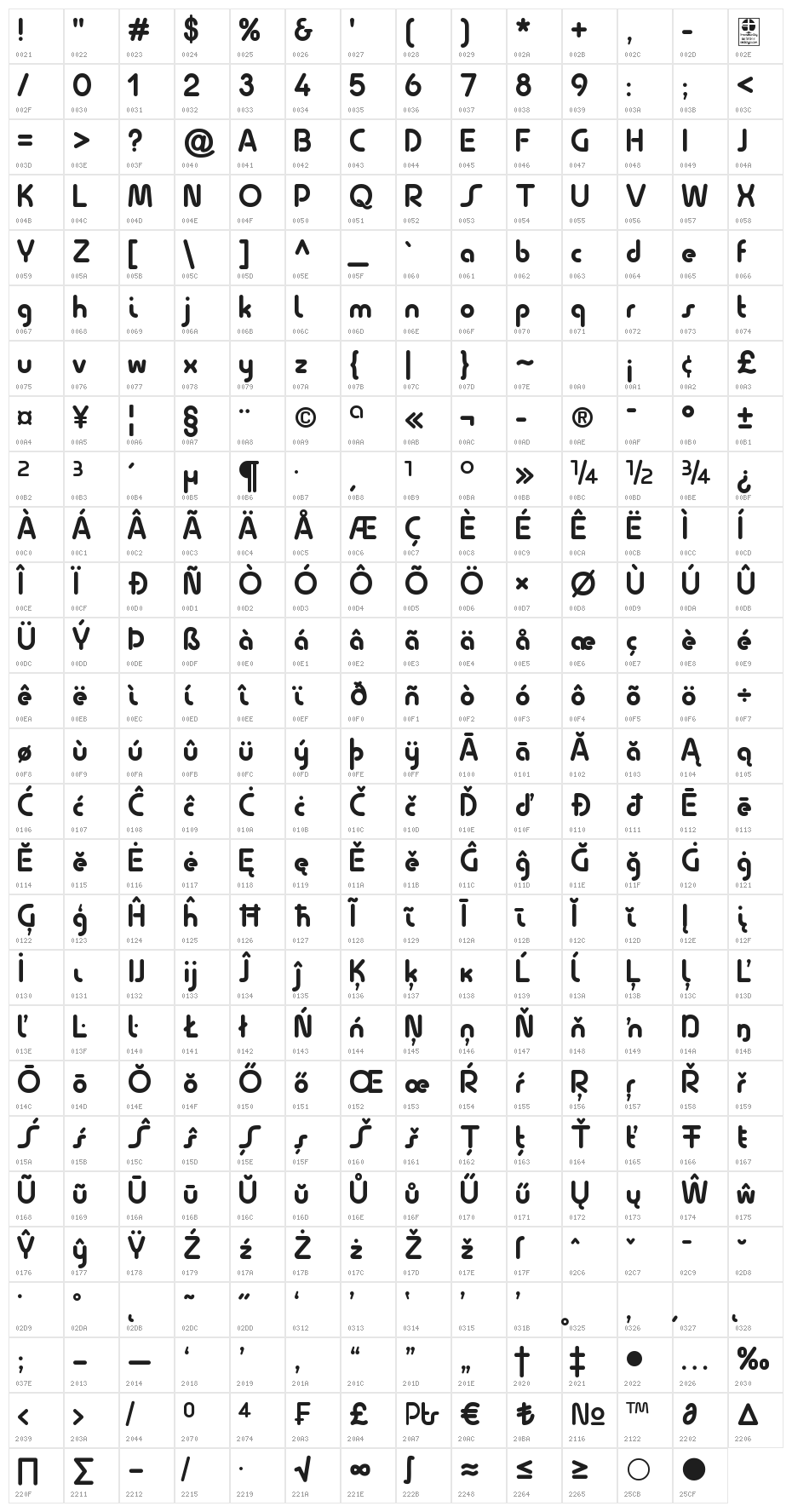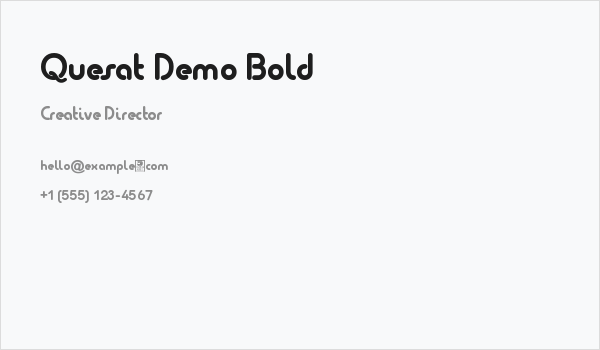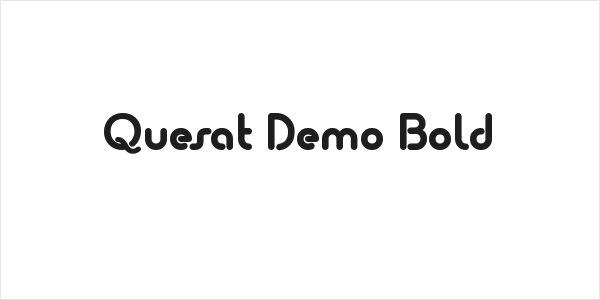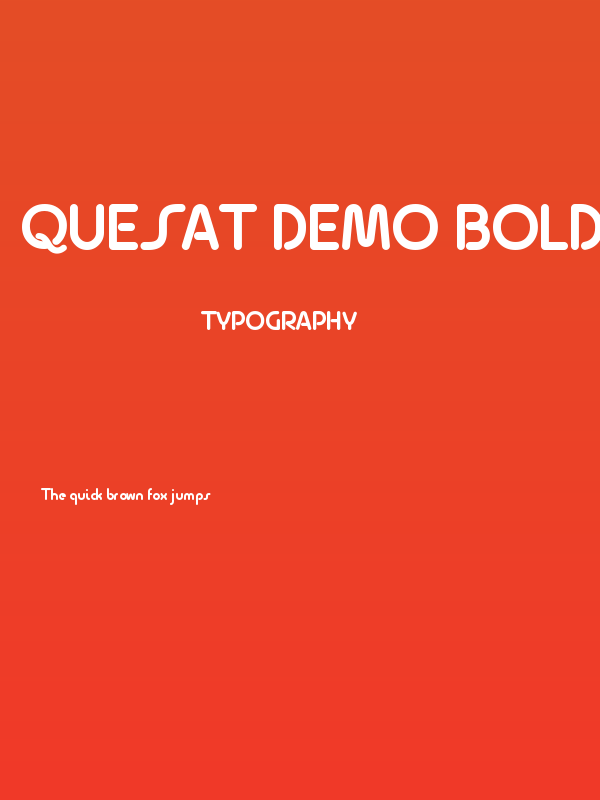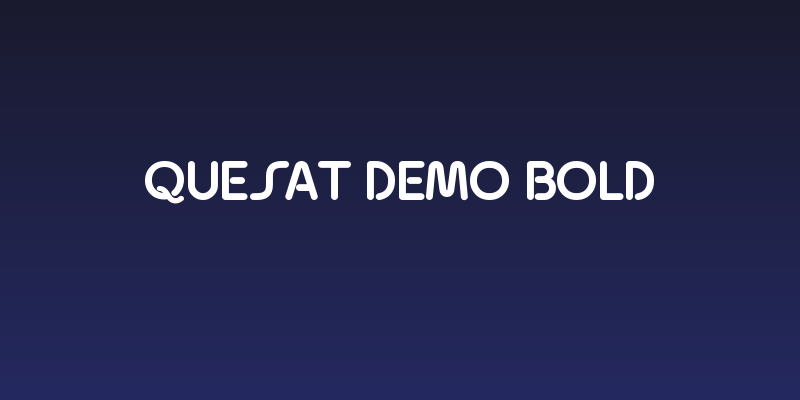
Quesat Demo Bold Font
Quesat Demo Bold Description
This font features a playful and rounded design, characterized by its bold and smooth curves. The letters have a consistent thickness, giving it a uniform appearance. The rounded edges and lack of sharp angles contribute to a friendly and approachable feel. It maintains a modern aesthetic while being highly legible, making it suitable for various applications. The numerals and special characters follow the same rounded style, ensuring consistency throughout. This font is versatile, offering a unique blend of modernity and simplicity.
| Proposed Projects | Ideal for children's books, playful branding, casual invitations, or any project requiring a friendly and modern touch. |